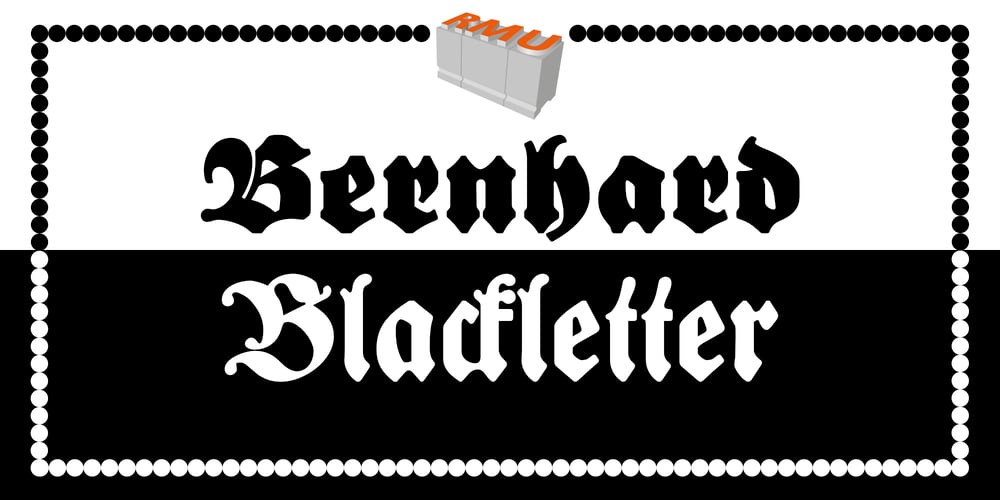
Bernhard Blackletter Font Family was designed by Lucian Bernhard, Ralph M. Unger and published by RMU. Bernhard Blackletter contains 2 styles and family package options. Bernhard Blackletter can be compared to a tuba, adding its deep bass sound to the orchestra of blackletter fonts. This font contains a bunch of useful ligatures, and to access all, it is recommended to activate both Standard and Discretionary Ligatures.